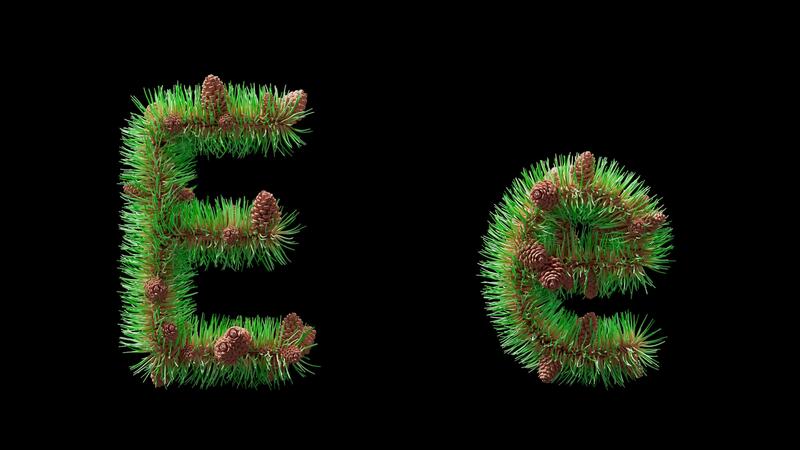
3D animation of uppercase and lowercase letter E created from pine needles with cones, alpha channel. Unique decorative font for eco-themed projects, New Year graphics and winter style design. Pro Video